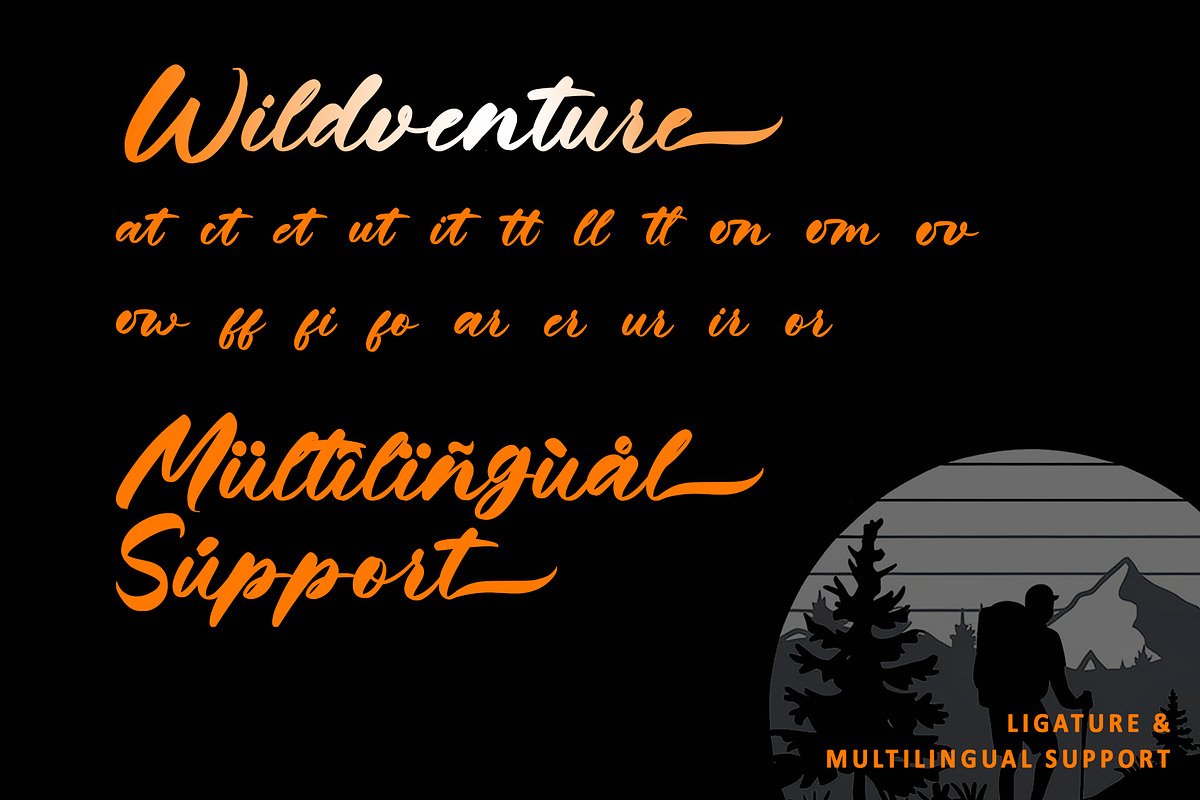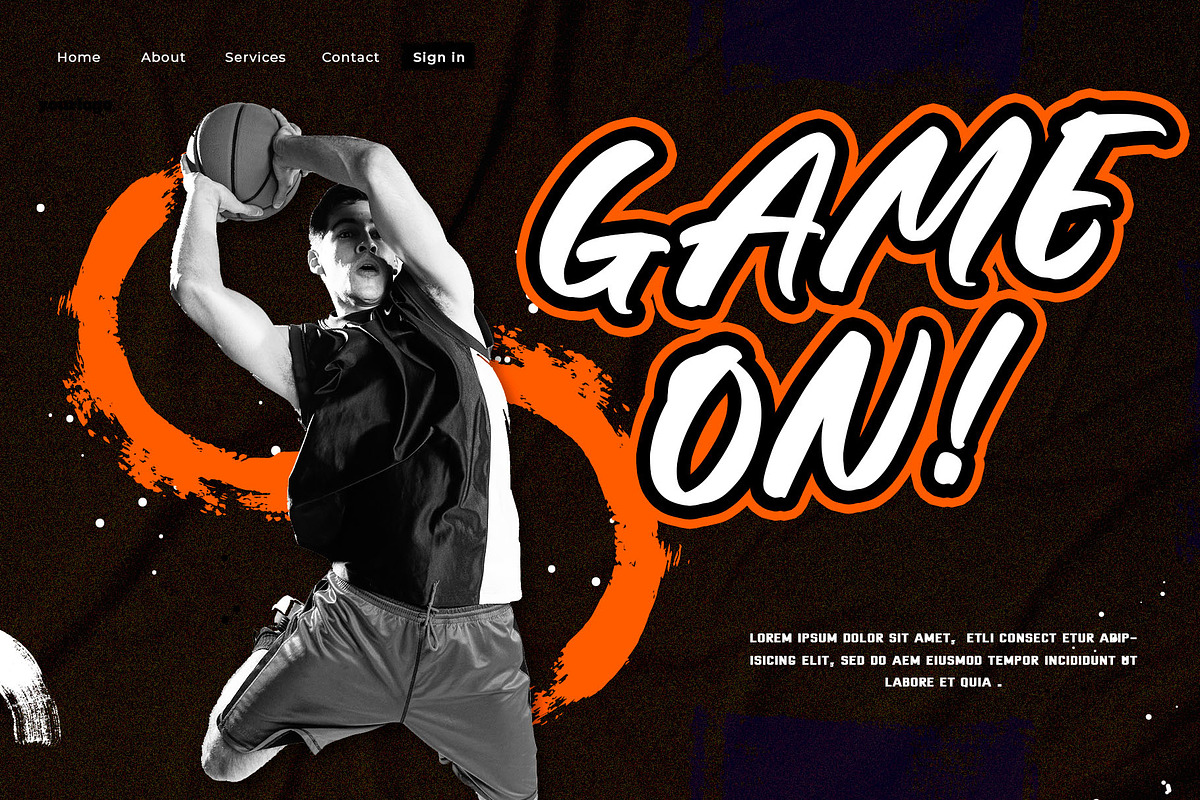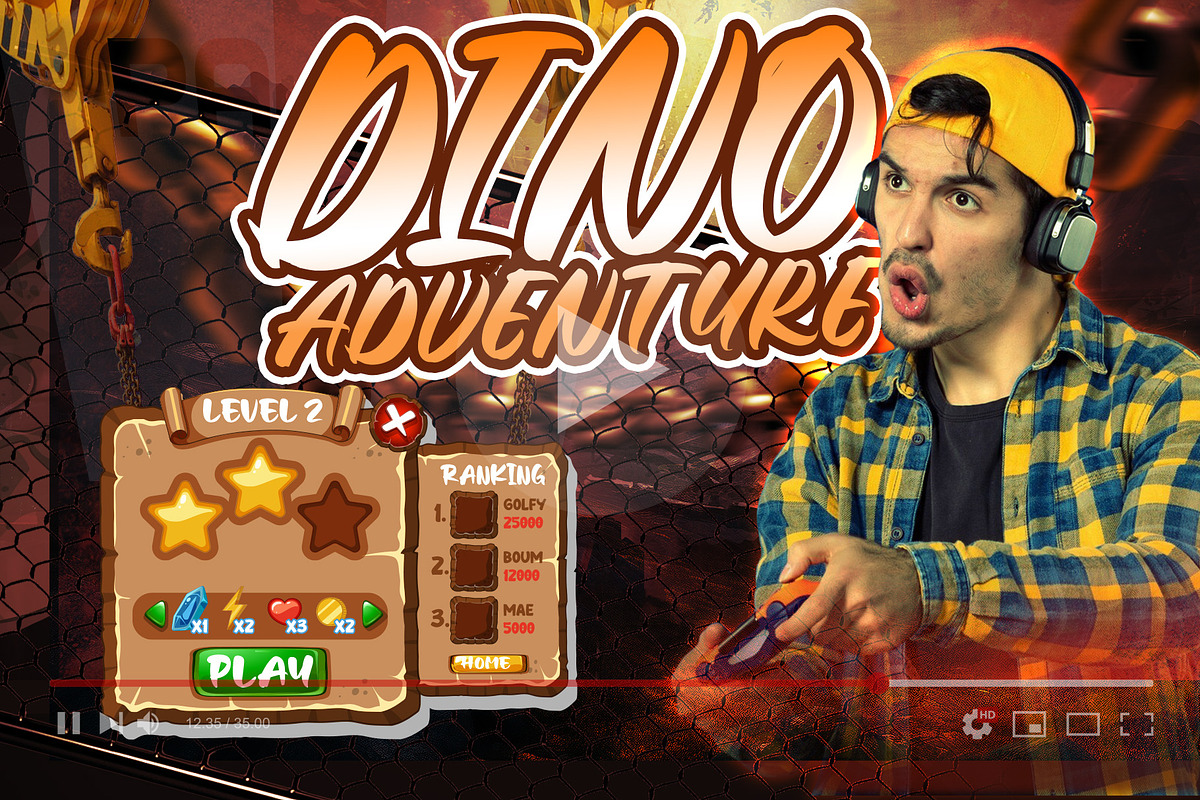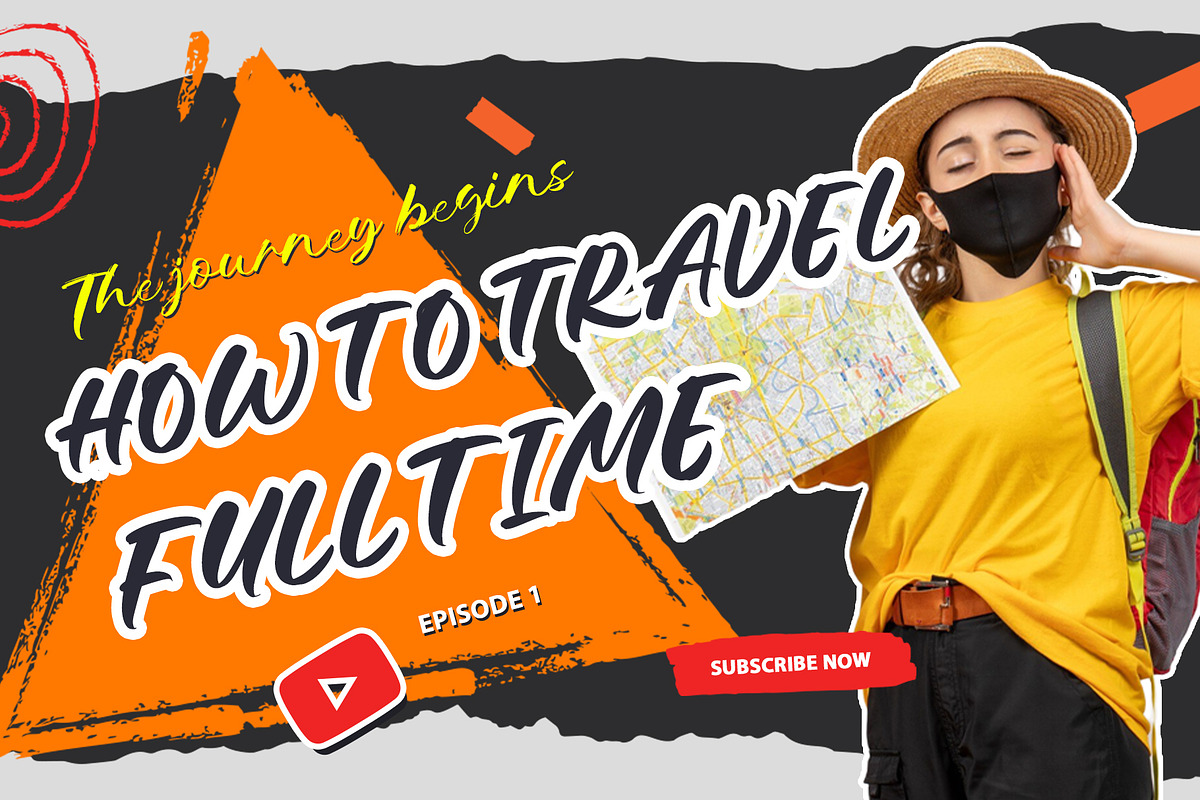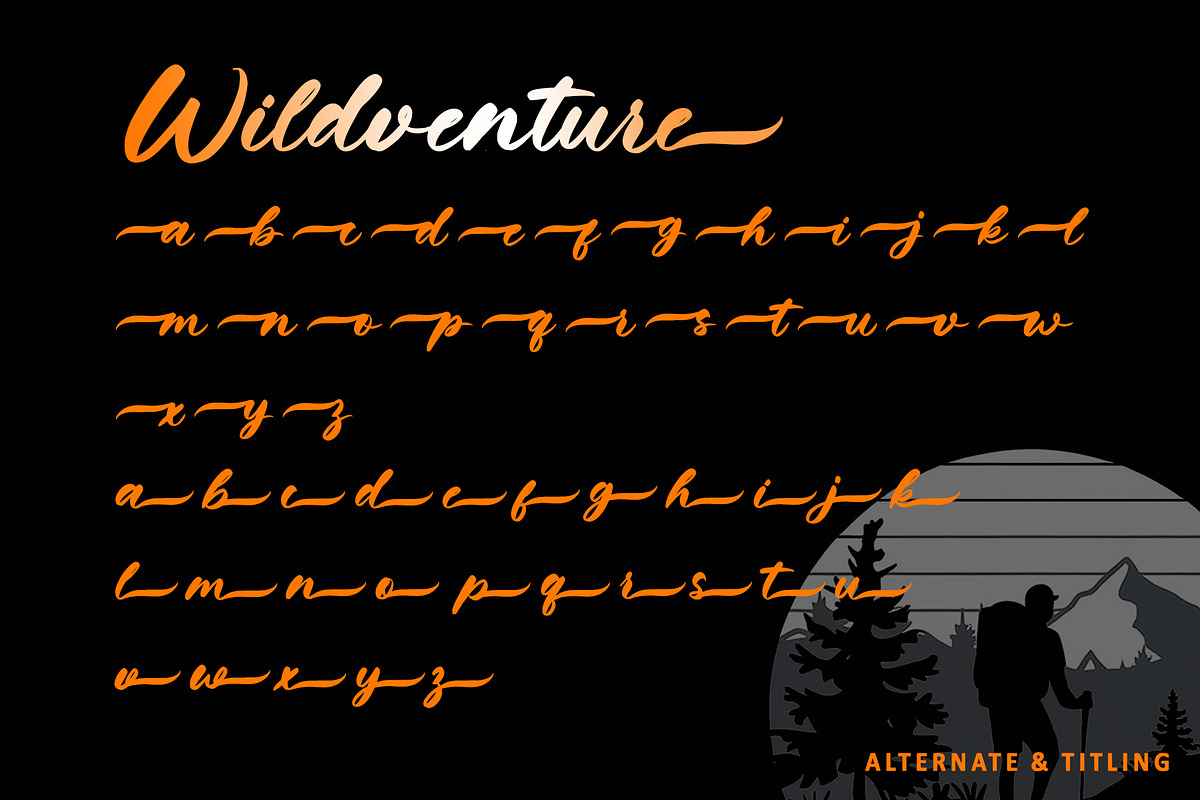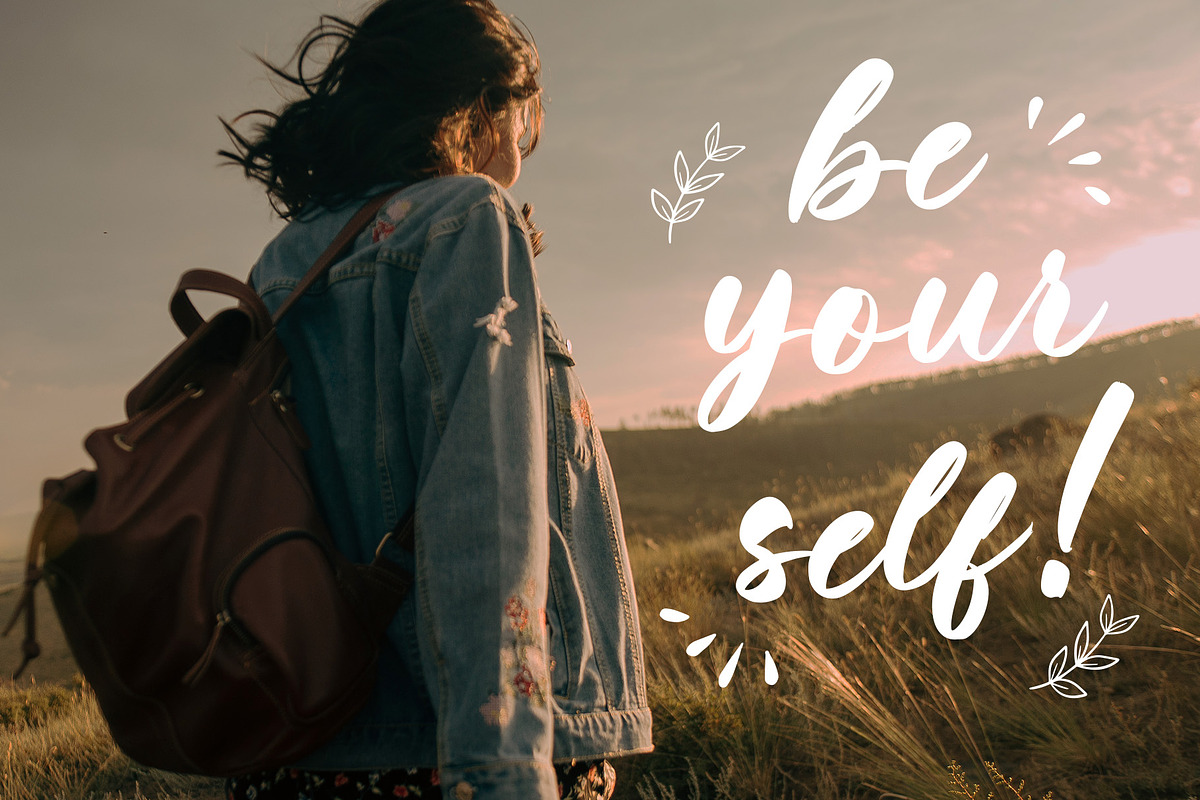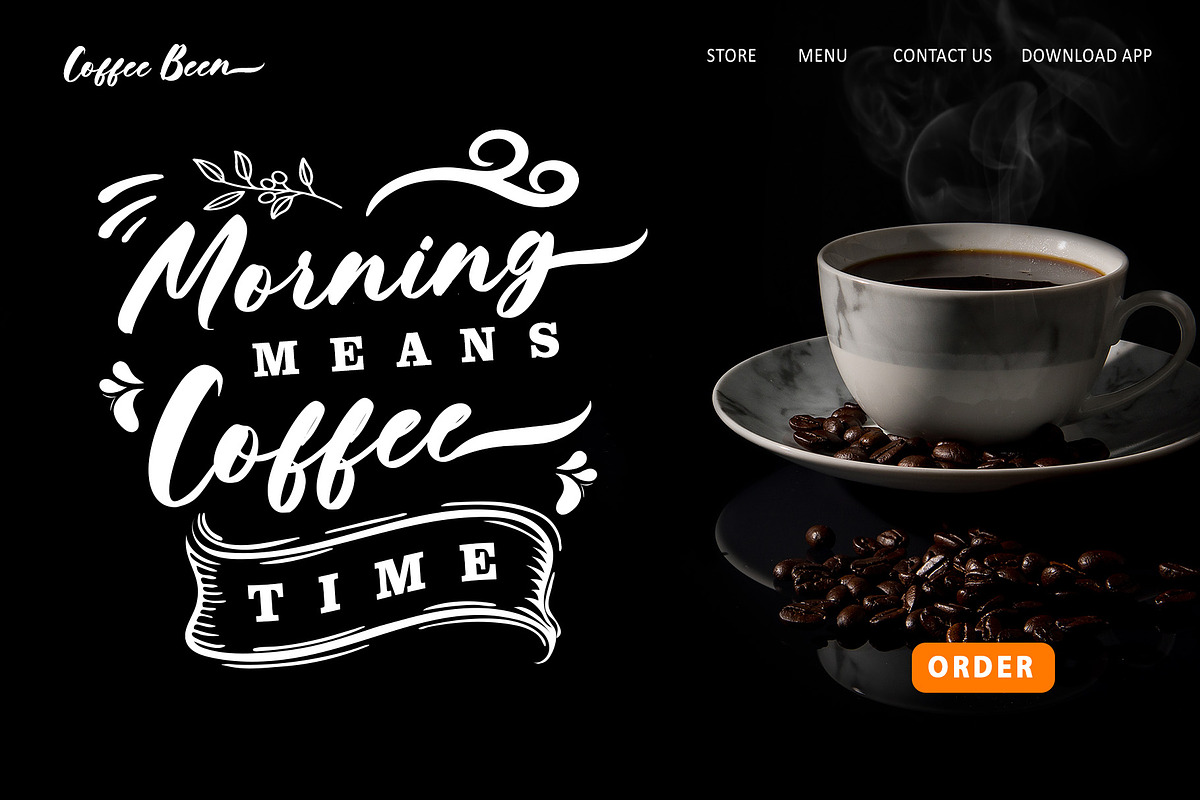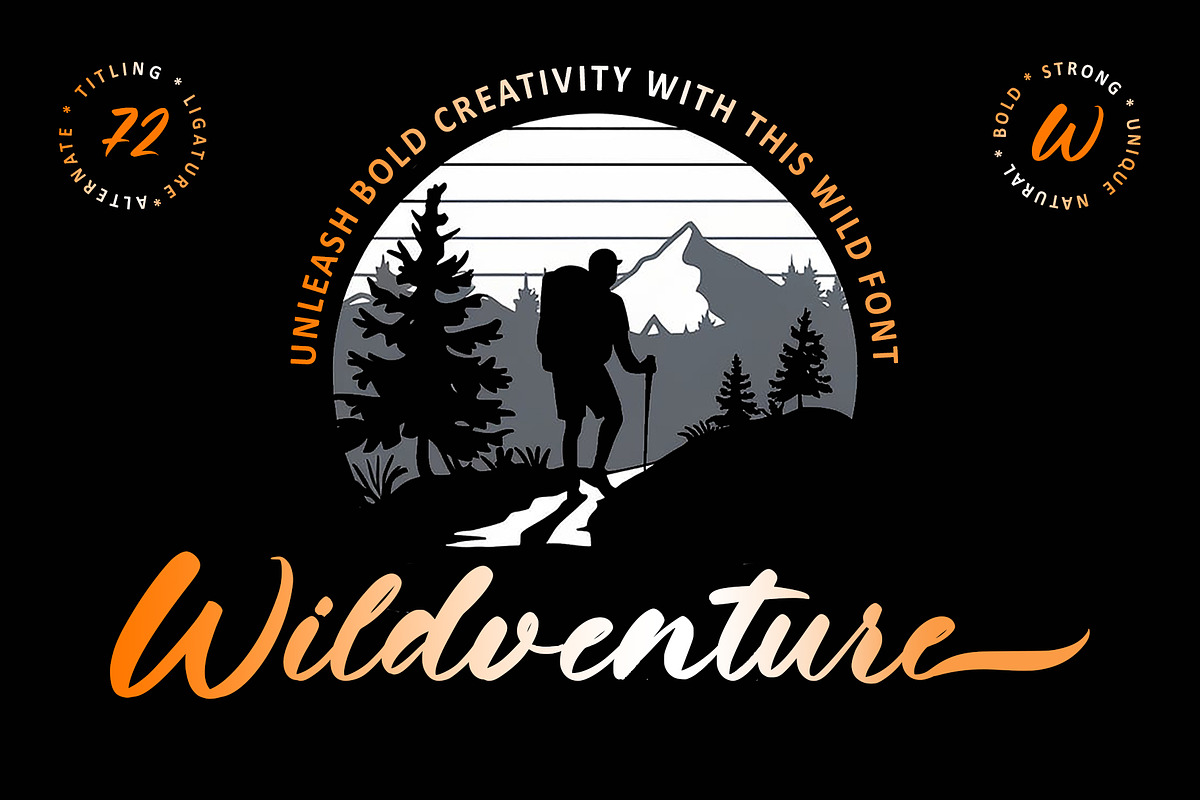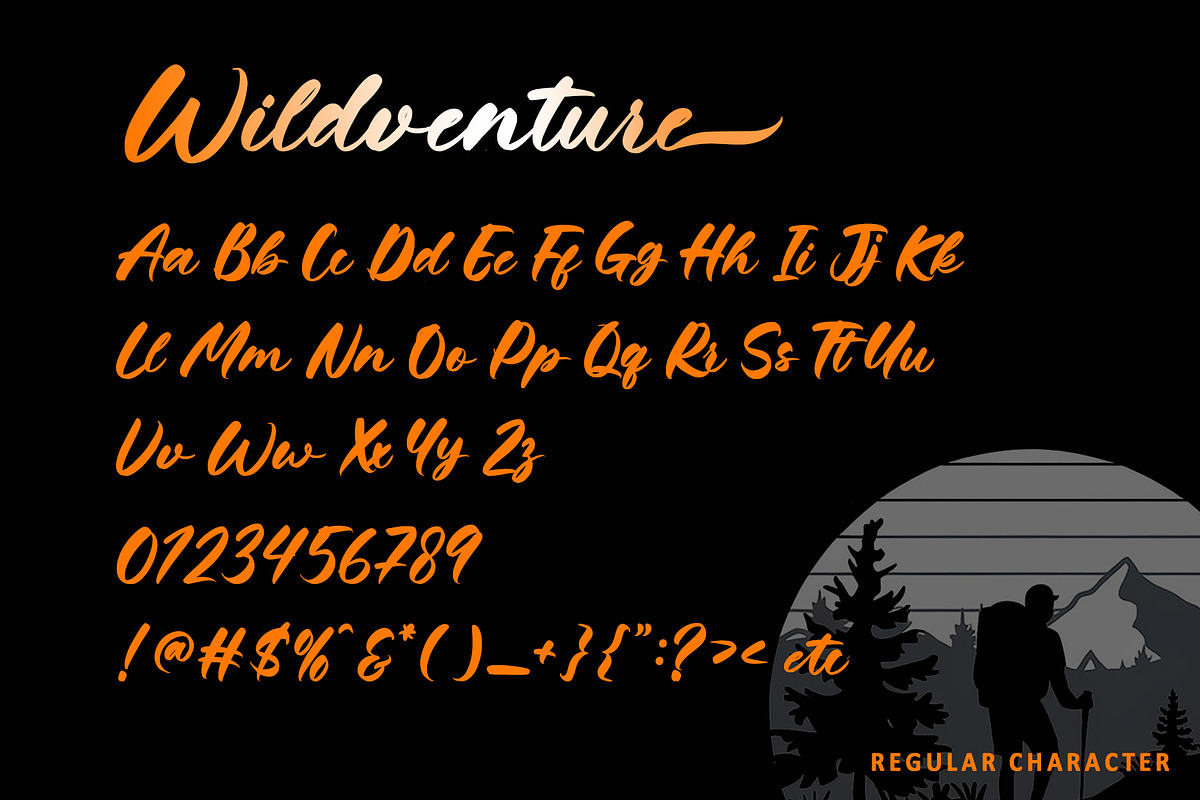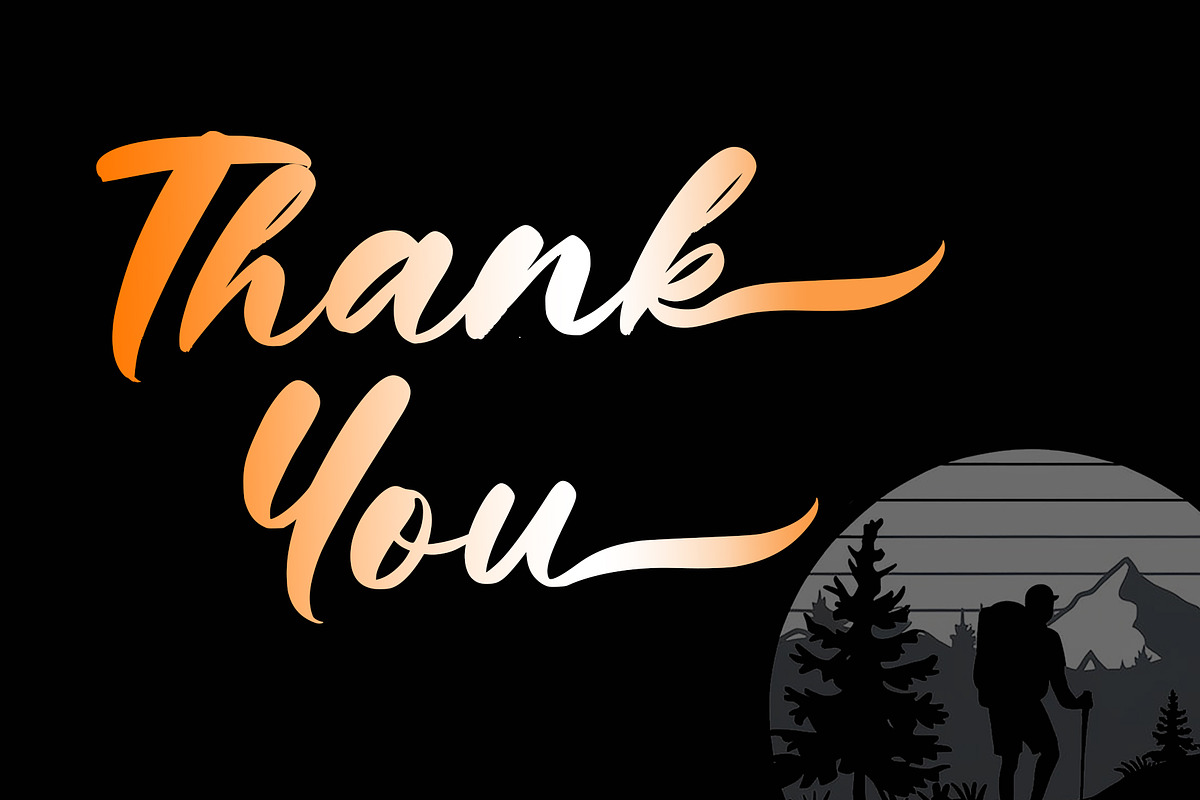
Wildventure
Introducing Wildventure, a bold brush font that captures the spirit of adventure and untamed creativity. With rugged, expressive strokes and a raw, textured finish, Wildventure brings an energetic, handcrafted feel to your designs. Perfect for daring logos, striking headlines, and dynamic branding, this font exudes movement and excitement. Its fluid letterforms and adventurous glyphs add a sense of thrill and exploration to every project. Featuring PUA encoding, Wildventure offers seamless access to all its unique features, empowering you to create with freedom. Embark on a creative journey with Wildventure—a font that fuels bold expression and fearless design.
- Support multilingual; ä ö ü Ä Ö Ü ß ¿ ¡
- lowercase and uppercase letters
- Alternate, titling & Ligature